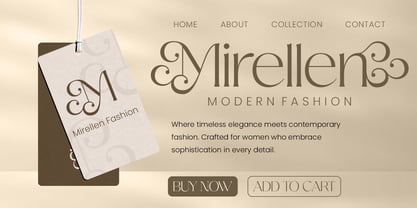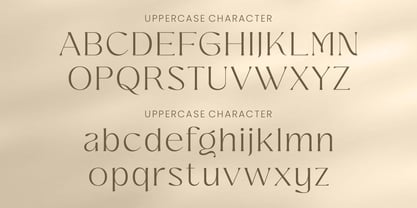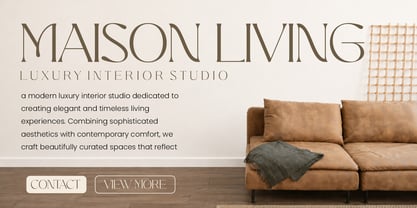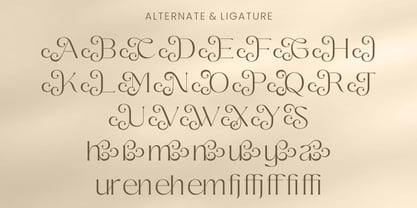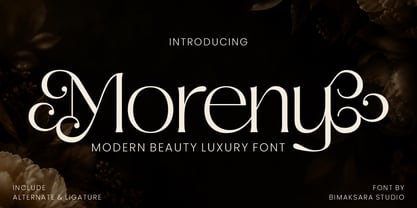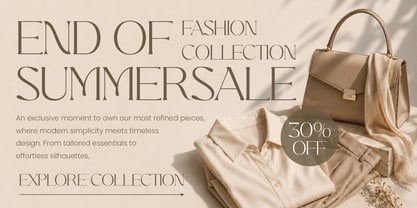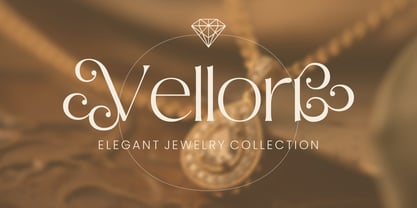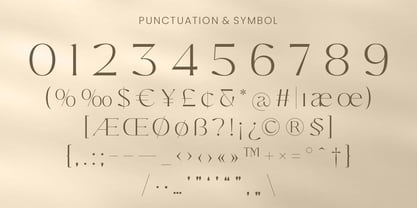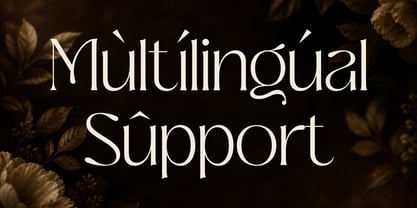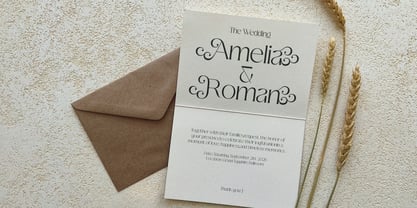
Moreny
Moreny is a modern luxury serif font crafted to bring elegance, beauty, and sophistication to your creative projects. Featuring graceful letterforms, stylish ligatures, and exquisite alternates, Moreny delivers a timeless aesthetic perfect for premium branding and high-end visual identities.
Inspired by contemporary fashion, luxury packaging, and elegant editorial design, Moreny is ideal for logos, wedding projects, jewelry brands, beauty products, boutique businesses, and luxury marketing materials.
MORENY – Modern Beauty Luxury Font
Features
• Elegant and sophisticated serif design
• Beautiful ligatures and alternate characters
• Perfect for luxury branding and logo design
• Uppercase, lowercase, numerals, and punctuation
• OpenType features with stylistic alternates
• Ideal for fashion, beauty, jewelry, wedding, and editorial projects
• Multilingual support
Elevate your brand with Moreny, a refined luxury font designed to create unforgettable and prestigious visual experiences